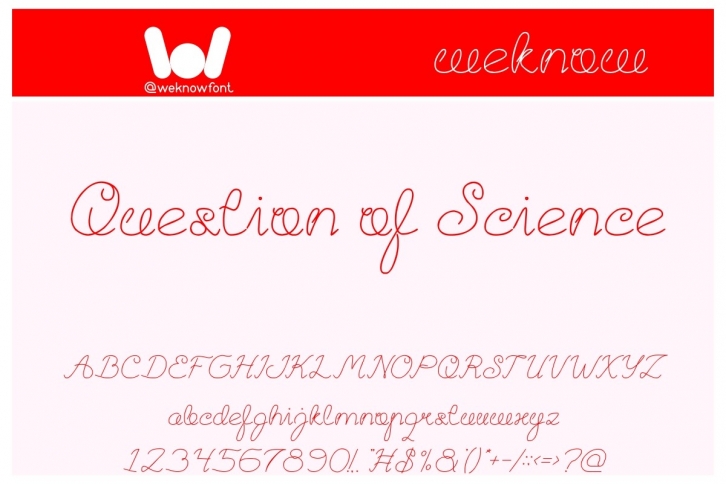
Question of Science is a vintage styled and delicate script font. Fall for its ravishing style and use it to create gorgeous wedding invitations, beautiful stationary art, eye-catching social media posts, and much more!